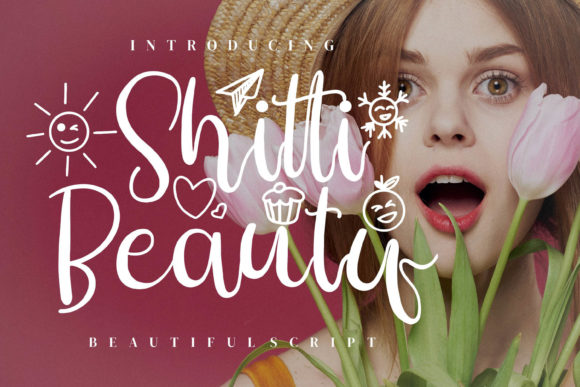
Welcome to the world of Shitti Beauty, a calligraphy-inspired script font that radiates elegance and charm. A creation of integritypestudio, this font is a masterful blend of flowing lines, delicate curves, and graceful strokes, designed to captivate and inspire.
As you immerse yourself in the allure of Shitti Beauty, you'll discover a font that transcends the ordinary. Its beauty is undeniable, evoking a sense of warmth and sophistication wherever it graces. Whether you're crafting wedding invitations, thank-you cards, enchanting logos, or captivating greeting cards, Shitti Beauty will transform your designs into works of art.
With its versatility, Shitti Beauty dances across a wide range of projects, effortlessly adapting to your creative vision. Its natural charm shines in personal branding, adding a touch of elegance to your logo or business cards. Let Shitti Beauty's allure blossom on your website, captivating visitors with its refined aesthetic. Unleash your creativity in digital marketing campaigns, where Shitti Beauty's charm will resonate with your audience, leaving a lasting impression.
Beyond its versatility, Shitti Beauty possesses a remarkable ability to evoke emotions. Its delicate strokes gently caress the senses, creating a sense of intimacy and warmth. This emotional resonance makes Shitti Beauty an ideal choice for projects that aim to connect with audiences on a deeper level. Whether you're crafting designs for a heartfelt wedding invitation or a touching greeting card, Shitti Beauty will infuse your words with an undeniable emotional depth.
As you delve deeper into the realm of Shitti Beauty, you'll discover a font that complements various design styles seamlessly. Its inherent grace harmonizes with both classic and modern aesthetics, allowing you to effortlessly create designs that stand the test of time. Experience the timeless beauty of Shitti Beauty as it effortlessly elevates your designs, adding a touch of sophistication and elegance.
Embrace the enchantment of Shitti Beauty and watch as your creative projects transform into captivating works of art. Its versatility, emotional resonance, and timeless beauty will leave an indelible mark on your audience, propelling your designs to new heights of excellence.